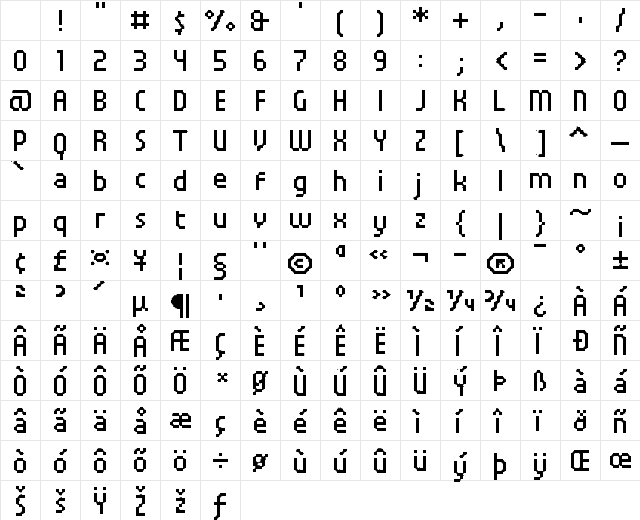
Complete UF Elementar B 09.11.2 a Regular glyph index. Displaying only characters natively supported by UF Elementar B 09.11.2 a Regular font.
UF Elementar B 09.11.2 a is a composed and adaptable typeface that performs quietly and consistently across a wide range of design contexts.
Who designed the UF Elementar B 09.11.2 a Regular font?